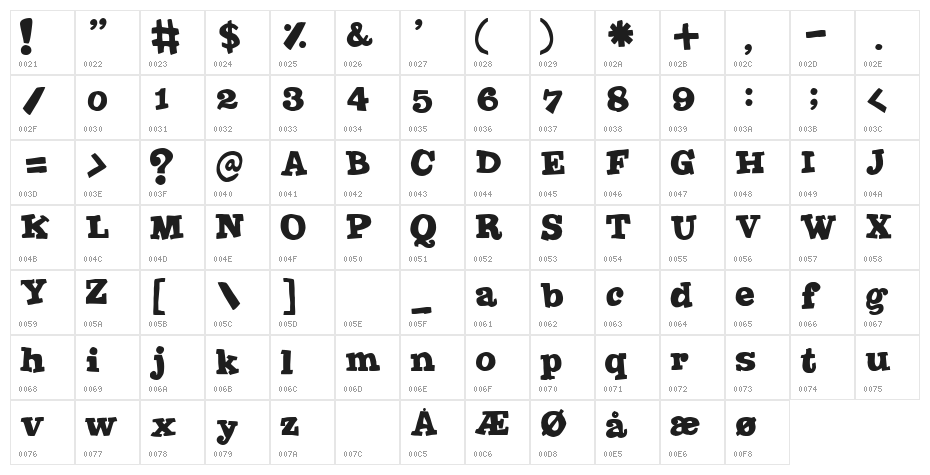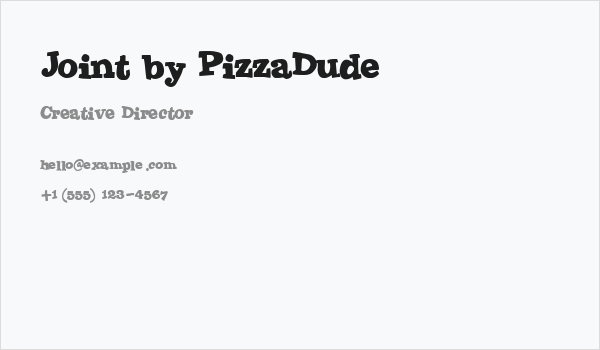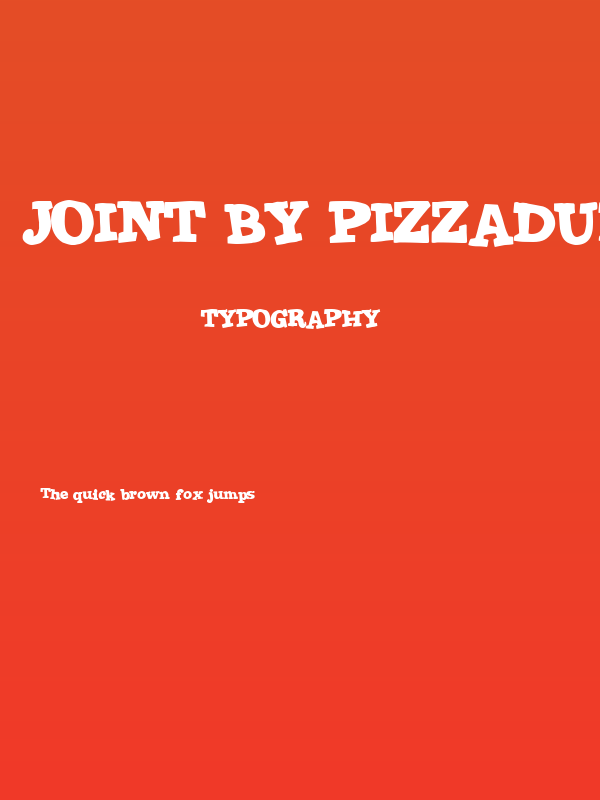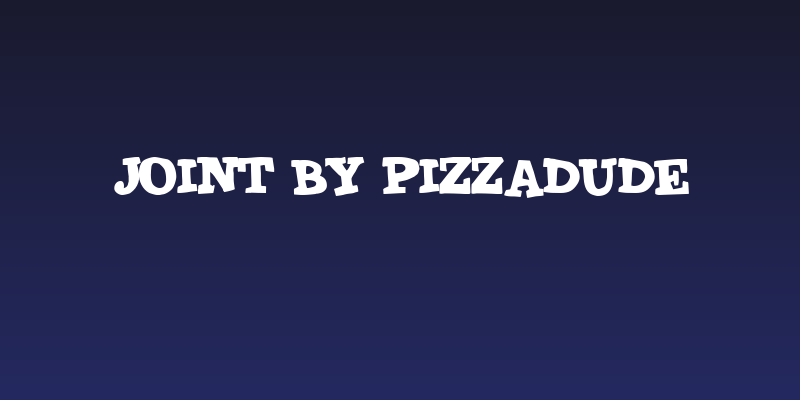
Joint by PizzaDude Font
Joint by PizzaDude Description
This playful and bold font features a whimsical, cartoon-like style with exaggerated curves and a slightly uneven baseline, giving it a lively and dynamic appearance. The characters are thick and rounded, with a sense of movement that adds a fun and informal touch. The uppercase and lowercase letters maintain a consistent style, while the numerals and special characters complement the overall design. This font's unique personality makes it stand out, perfect for projects that require a touch of humor and creativity.
Overall StylePlayful, Whimsical
Proposed ProjectsIdeal for children's books, comic strips, playful branding, party invitations, and casual posters.